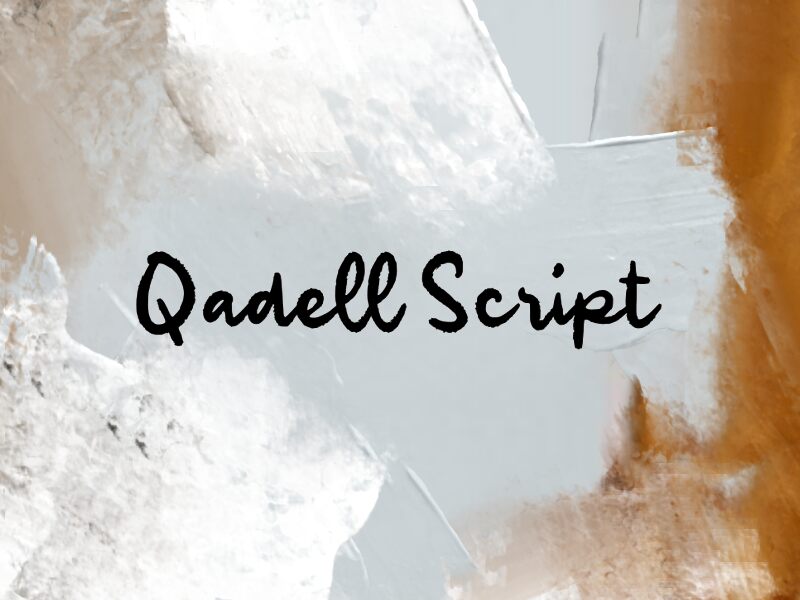
Qadell Script
Qadell Script font by wep is a free brush script font that captures the looseness of real handwriting without losing clarity. Its inky, slightly rough strokes and gentle bounce feel like a quick note written with a favorite pen, yet the letters stay open and steady enough for longer text. The rhythm is relaxed but not messy, giving you character and personality without sacrificing legibility.
Using Qadell Script, you can bring a warm, handwritten touch to logos, social posts, quotes, greeting cards, product packaging, and casual invitations. This free font shines when used at medium to large sizes where its textured strokes can really show, and it pairs effortlessly with a clean geometric sans serif set in lighter weights for body copy or taglines.